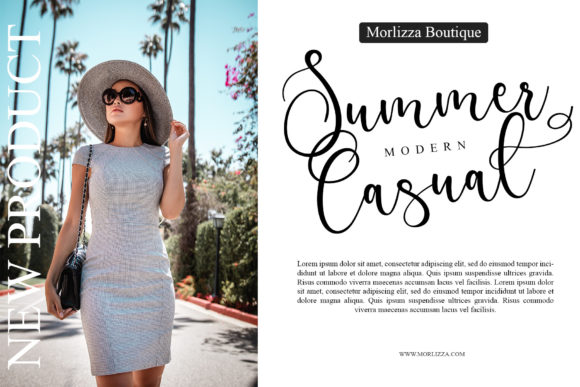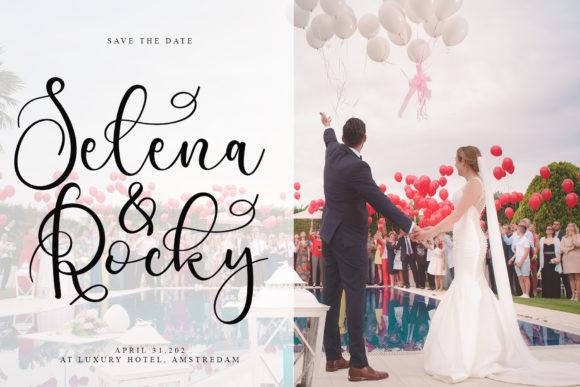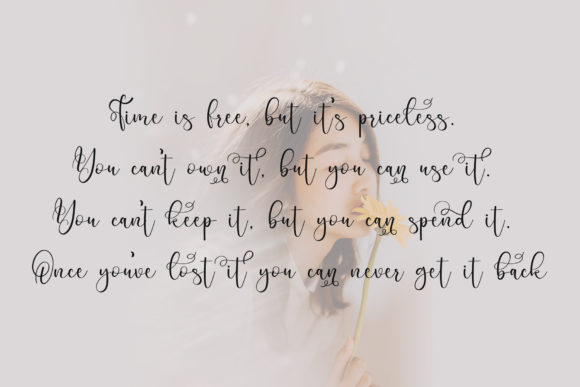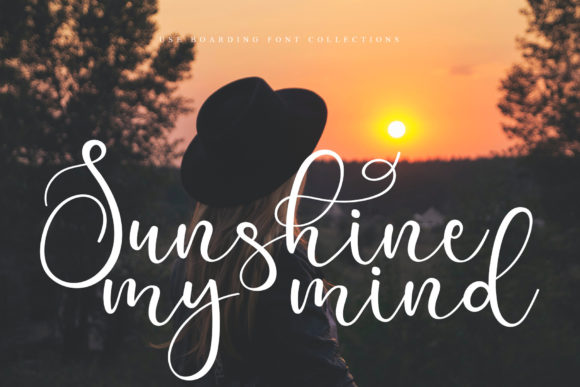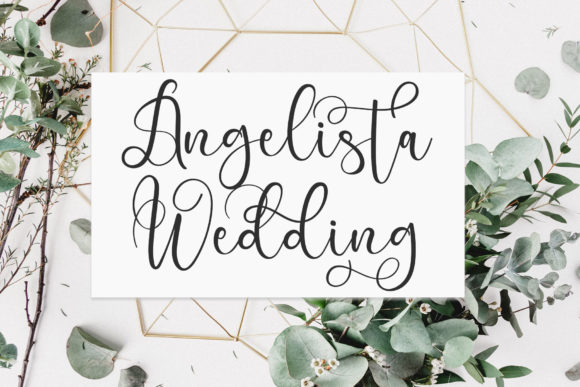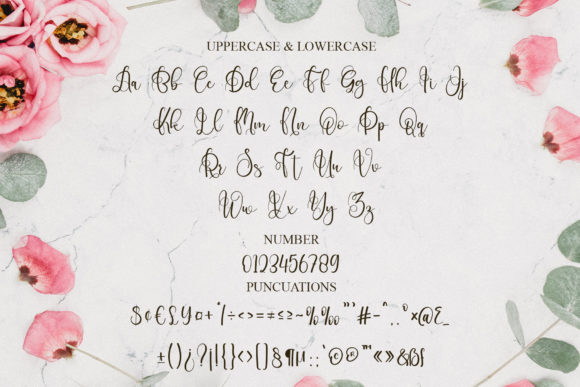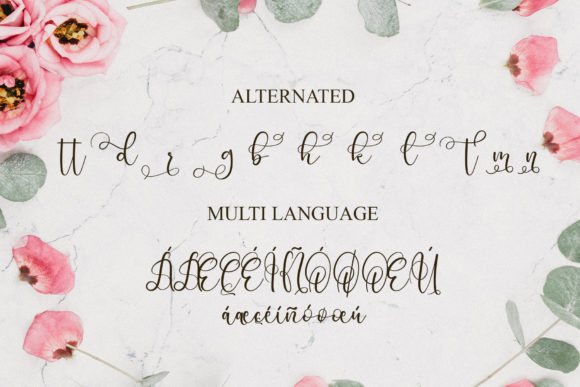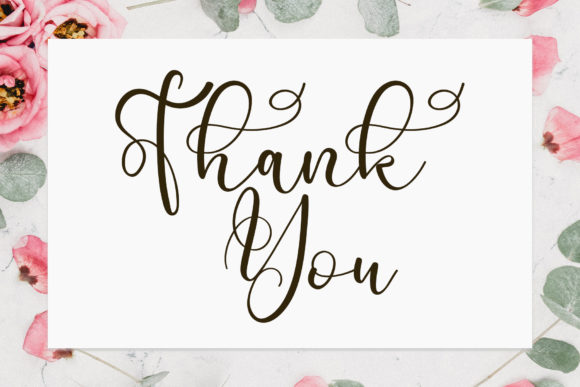
Boarding Font
About Boarding Font
Boarding is a romantic and sweet modern calligraphy typeface that captures attention with characters gracefully dancing along the baseline. This font is not just a set of letters; it’s a visual experience that infuses romance and sweetness into your designs. Moreover, Boarding is PUA encoded, providing easy access to a plethora of amazing glyphs and ligatures.
The romantic and sweet nature of Boarding makes it an ideal choice for a variety of design applications. Whether used in wedding invitations, love letters, or any creative project seeking a touch of romance, Boarding adds a distinctive and elegant aesthetic.
The PUA encoding in Boarding enhances its usability, allowing for seamless access to a range of unique glyphs and ligatures. This feature empowers designers to explore and incorporate various stylistic elements effortlessly, making it easy to customize the font to suit the specific requirements of their projects.
In summary, Boarding is more than just a font; it’s a romantic and sweet modern calligraphy typeface that brings a unique charm to your designs. With characters gracefully dancing along the baseline and PUA encoding providing easy access to a variety of glyphs and ligatures, Boarding is poised to elevate your creative projects with a touch of elegance and romance.